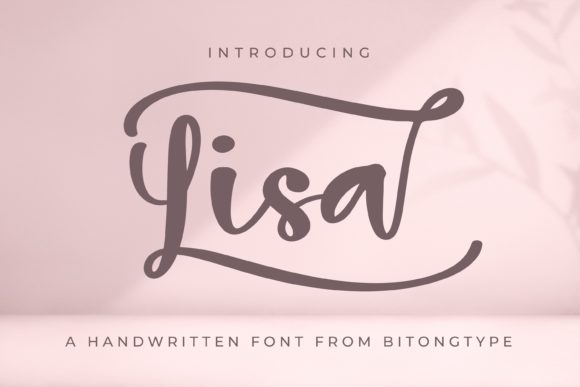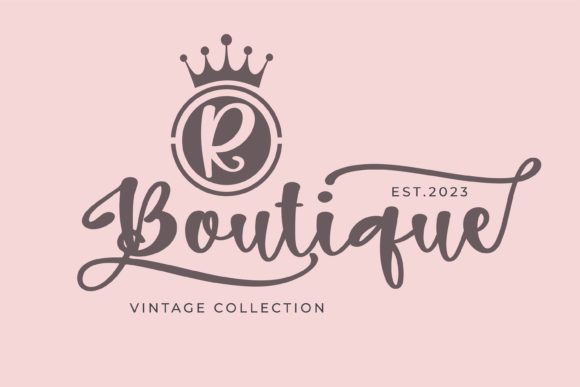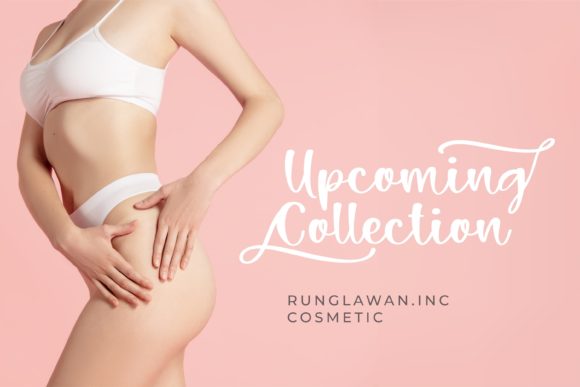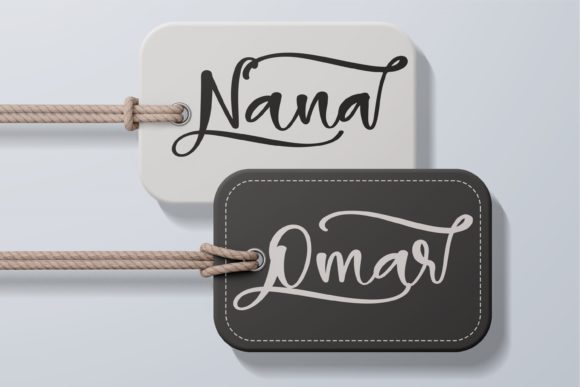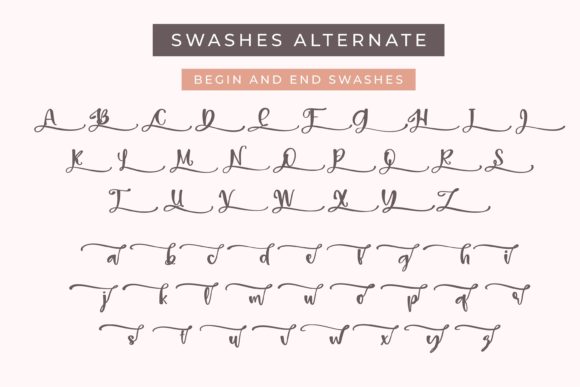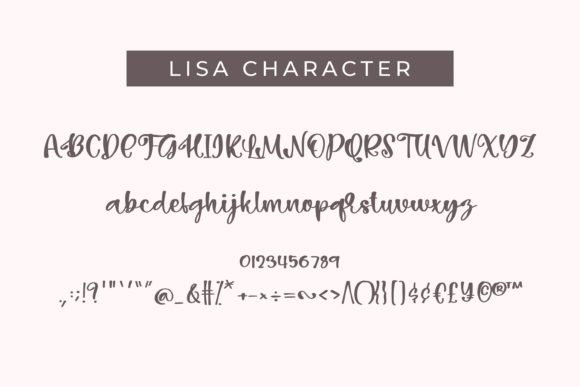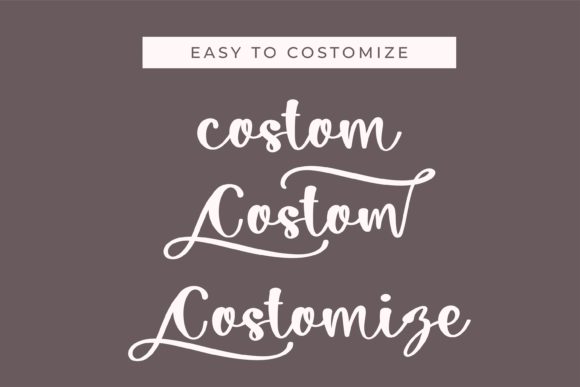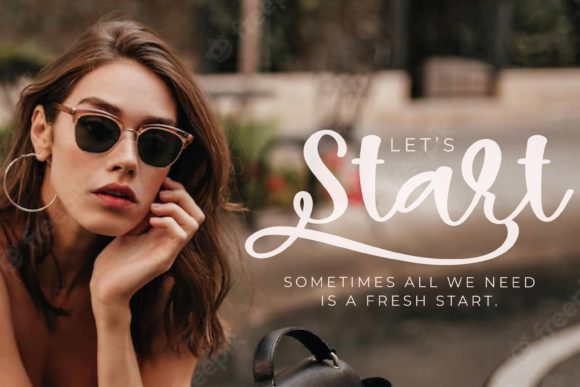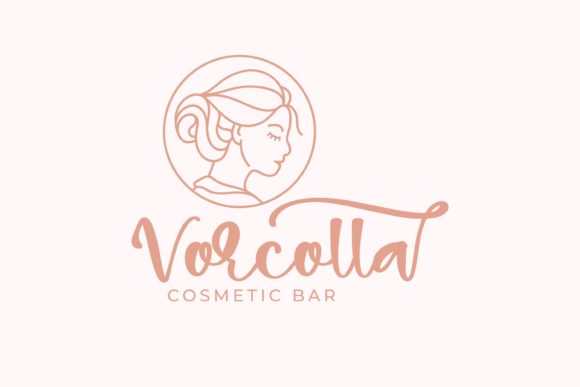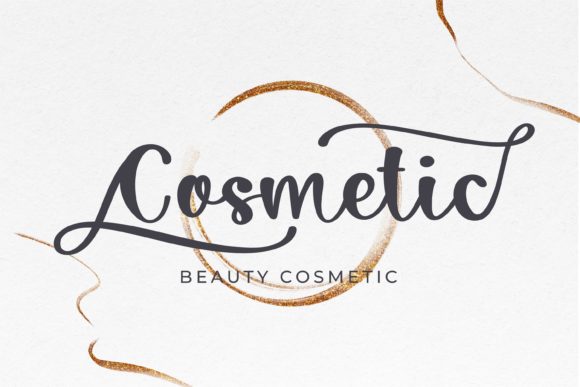
Lisa Font
About Lisa Font
Lisa is a refined and graceful handwritten font that exudes a sense of delicacy and elegance. With its beautifully balanced characters and flowing strokes, Lisa is a versatile typeface that can effortlessly complement a diverse range of design projects.
The font’s elegant and well-crafted letterforms make it an excellent choice for various branding projects. Whether you’re creating logos, business cards, or product packaging, Lisa can add a touch of sophistication and charm that resonates with your target audience. Its flowing nature and intricate details allow it to adapt to different design aesthetics while maintaining its timeless appeal.
Lisa’s versatility extends to digital media as well. It’s a perfect option for social media graphics, website headers, and blog posts, where its graceful curves and stylish appearance can enhance the visual appeal of your online presence. The font’s PUA encoding ensures that you have easy access to a wide range of glyphs and swashes, enabling you to create unique and personalized designs effortlessly.
In addition to branding and digital applications, Lisa is an ideal choice for printed materials such as invitations, greeting cards, and stationery. Its elegant script adds a touch of refinement to special occasions and personal correspondence, making every interaction more memorable and meaningful.
Whether you’re aiming for a classic, romantic, or contemporary look, Lisa’s versatility allows it to seamlessly integrate into your design vision. Its delicate and flowing nature adds a sense of sophistication to any project, making it a valuable asset in your design toolkit. With Lisa, you have the freedom to create beautiful and well-balanced designs that capture the essence of elegance and creativity.